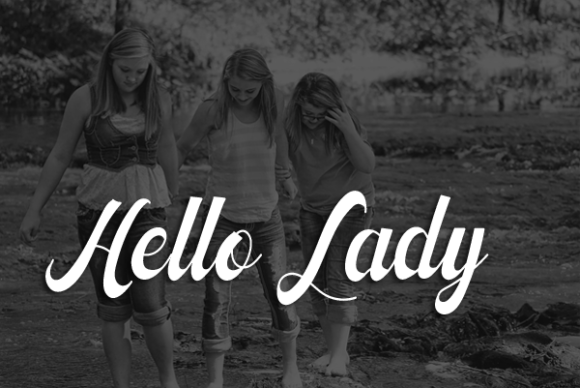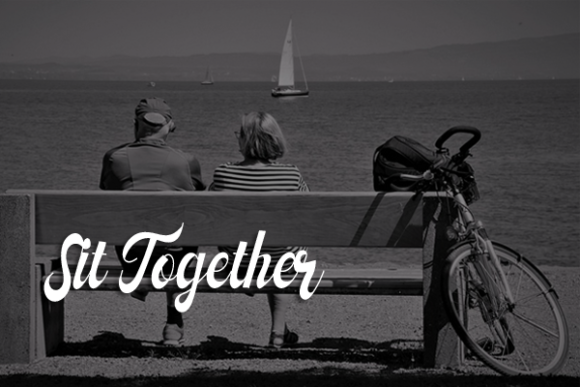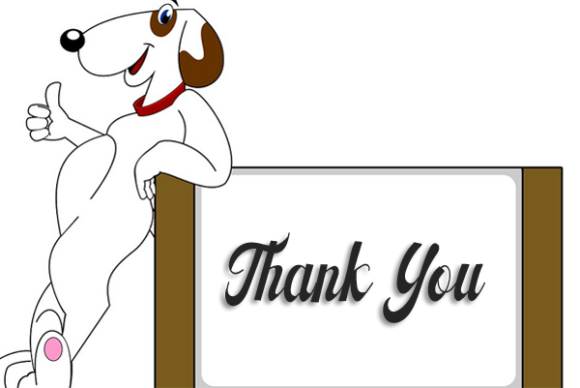
The Magic of Best Friend Font: A Designer’s Delight
Best Friend is an enchanting handwritten font that has become a staple in my design toolkit. Its versatility and romantic feel make it perfect for a wide range of projects, from greeting cards to headlines. In this article, I’ll share my experience with Best Friend font, its features, and how to make the most of it in your designs.
- ✨ Elegant and flowing script style
- ✅ Highly versatile for various design applications
- 💖 Romantic feel that’s perfect for wedding and Valentine’s Day projects
- 🎨 Beautifully crafted to add a personal touch to your designs
While Best Friend font is amazing, there are a few things to keep in mind:
- 🤔 Some letters may require manual kerning for optimal spacing
- Experiment with the font’s OpenType features, such as ligatures and stylistic alternates, to add personality to your design.
- Explore the font’s glyphs, including ligatures, stylistic alternates, and swashes.
The Story Behind Best Friend Font
Best Friend font was designed with love and care by a talented type designer. The font’s creator aimed to craft a beautiful, handwritten script that would evoke feelings of warmth and connection. The result is a stunning font that’s perfect for designs that require a personal touch.
Q: What is the best use for Best Friend font?
A: Best Friend font is versatile and can be used for a wide range of projects, including greeting cards, wedding invitations, headlines, and more.